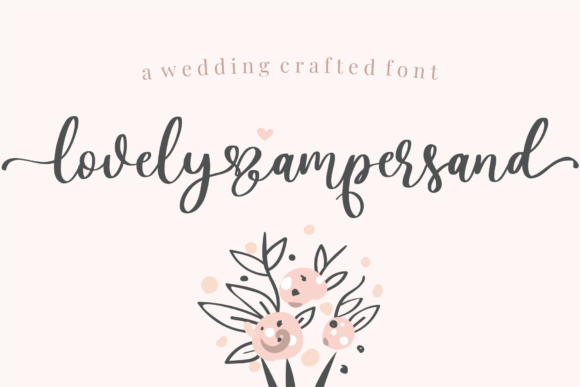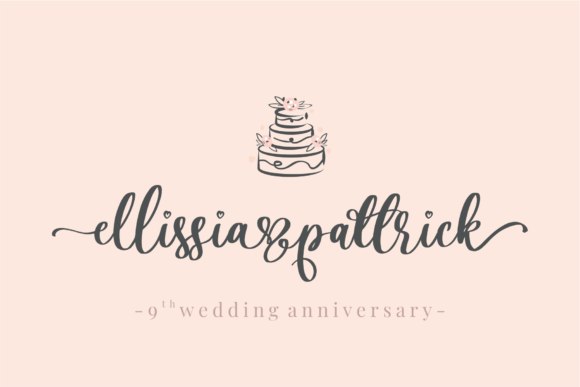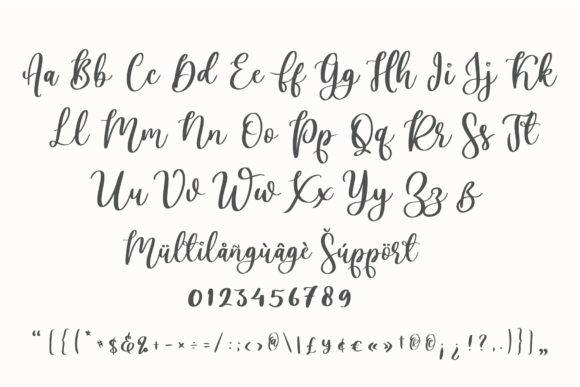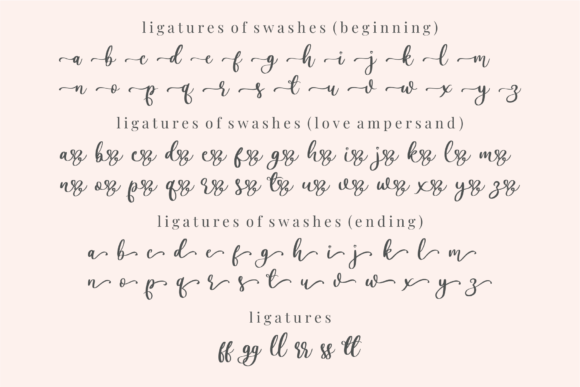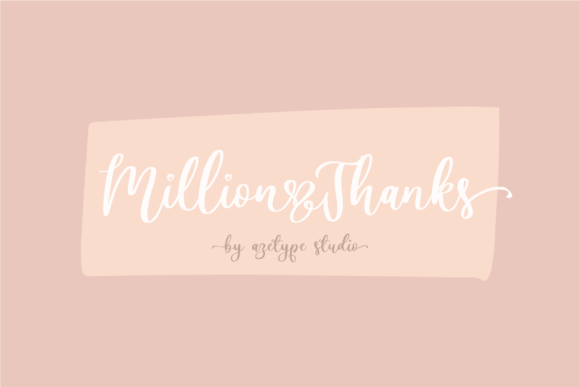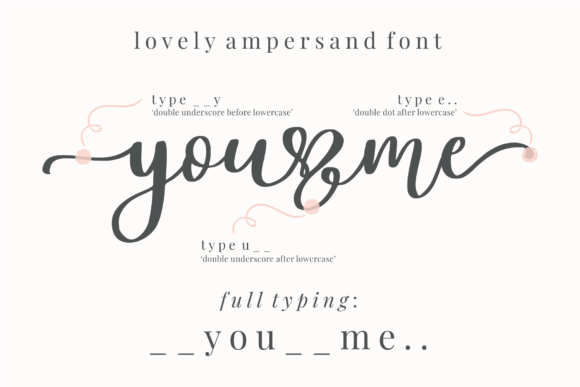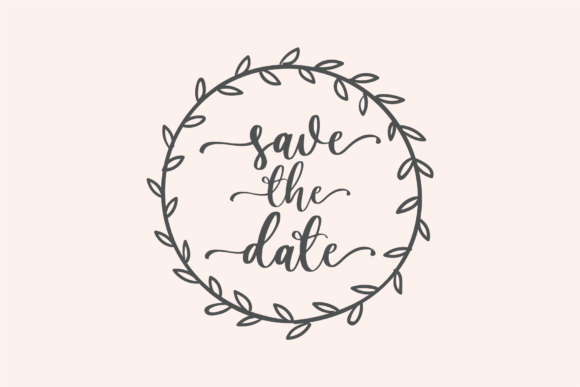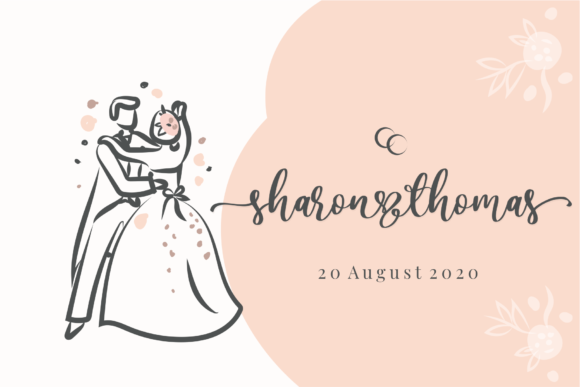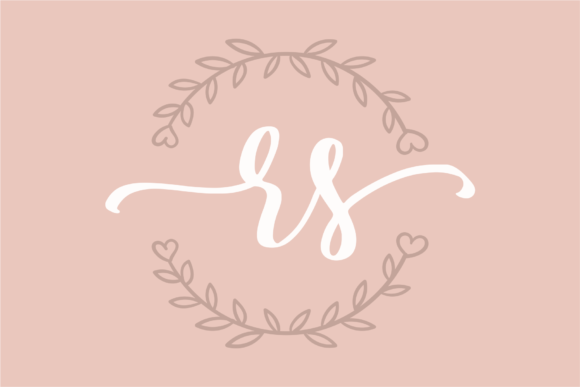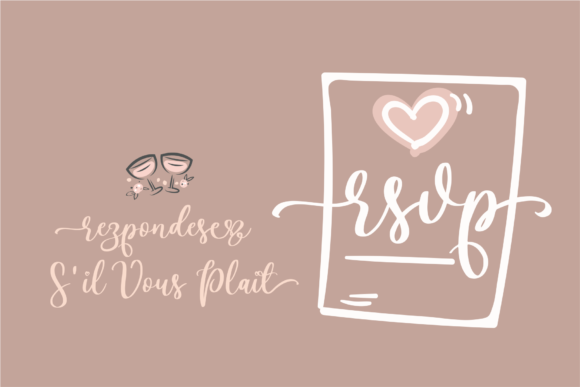
Lovely Ampersand Font
Lovely Ampersand is an equally elegant and versatile font, that will elevate any project you have in mind! Use it to create beautiful wedding invitations, greeting cards, logos, websites and much more!
This font is PUA encoded which means you can access all of the glyphs and swashes with ease! It also features a wealth of special features including alternate glyphs and ligatures.